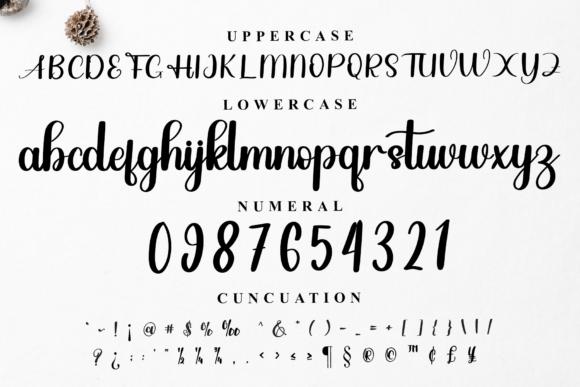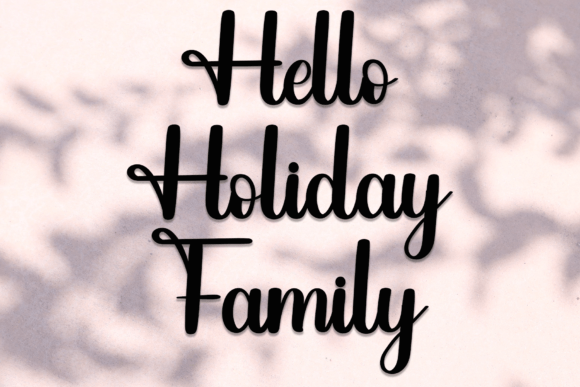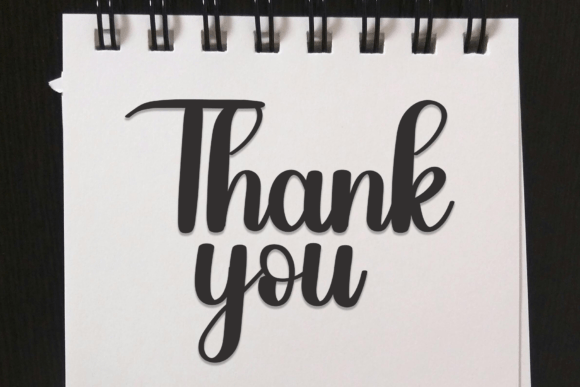
Getting into the Holiday Spirit with Heartbeat Font
There’s something magical about sitting down with a warm cup of coffee or hot chocolate, surrounded by twinkling lights and festive decorations, and getting creative for the holiday season. It’s the perfect time to break out your favorite design tools and let your imagination run wild. And what better way to add some extra cheer to your projects than with the perfect font?
Enter Heartbeat Font, a festive and happy typeface that captures the spirit of the holiday season. With its decorative elements and unique flair, it adds a touch of charm to your designs, making it perfect for greeting cards, gift labels, and holiday-themed projects. Whether you’re a seasoned designer or just starting out, Heartbeat Font is a valuable addition to your toolkit, offering endless possibilities for creativity and expression.
Key Features of Heartbeat Font
- Unique Characteristics: Heartbeat Font features a dynamic, pulsing effect that creates a sense of energy and movement, perfect for designs that require attention-grabbing visual interest.
Heartbeat Font Review
I recently had the chance to work with the Heartbeat font, and I have to say, it’s a unique and interesting choice. Here are some of my thoughts on what works well and what doesn’t.
- Expressive and emotive feel: The Heartbeat font is all about conveying emotions and energy, which makes it perfect for use in creative or expressive projects.
- Playful and modern look: The font’s unique letterforms and rounded edges give it a playful, modern feel that’s hard to resist.
- Highly customizable: With a wide range of weights and styles, you can easily customize the font to fit your specific design needs.
- Limited legibility: In certain contexts, the font’s playful feel can make it difficult to read, especially at smaller font sizes.
- Not suitable for body text: Due to its expressive nature, the Heartbeat font is best used for titles, headings, or other short text elements.
- May require additional design work: To get the most out of the font, you may need to spend some extra time tweaking your design to balance out the font’s quirks.
Overall, I think the Heartbeat font is a great choice for designers who want to add a touch of personality and energy to their projects. Just be aware of its limitations and use it wisely!
Practical Application Guide for Heartbeat Font
The Heartbeat Font is ideal for creative and expressive designs, such as logos, posters, and social media graphics. It can also be used to create a dynamic and energetic atmosphere in presentations and documents.
To get the most out of the Heartbeat Font, experiment with different font sizes, colors, and combinations with other fonts. Also, consider using the font in conjunction with animations and graphics to create a visually appealing design.
Alternatives to Heartbeat Font for Designers
Great Vibes Font is a beautiful, handwritten font that conveys a sense of elegance and sophistication. It’s perfect for use in invitations, wedding cards, and other creative projects that require a touch of whimsy. Unlike Heartbeat Font, which has a more dramatic and energetic feel, Great Vibes Font is softer and more refined.